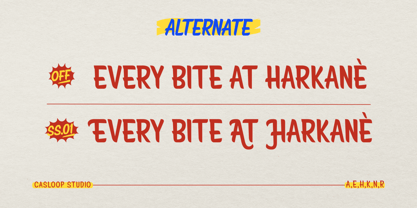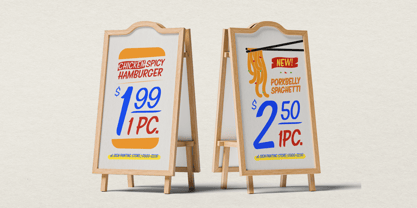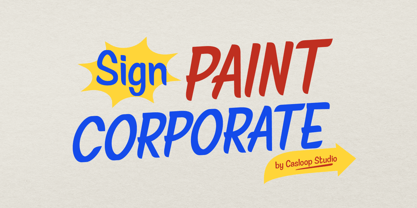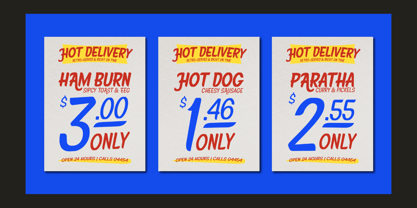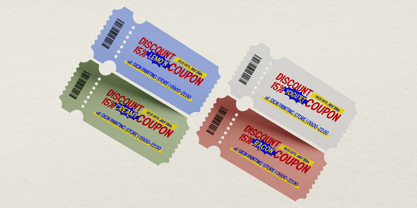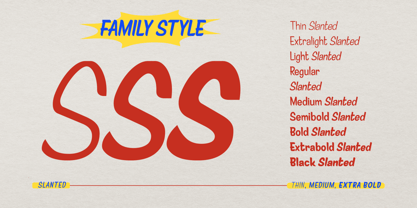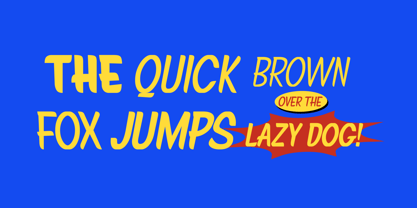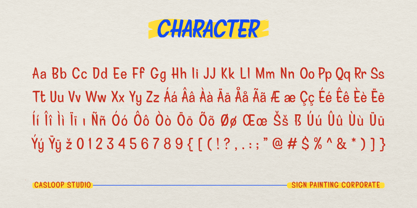
Signpaint Corporate
The Signpaint Corporate Font Family was designed by Wantara Putra and published by Casloop Studio. Signpaint Corporate contains 18 styles and family package options. More about this family
Sign Painting Corporate is a nostalgic display typeface inspired by the hand-painted signage era of the '60s–'80s — when every street corner was a canvas and every letter told a story. Designed with expressive brush strokes and round, friendly sans, this font captures the bold charm of vintage storefront lettering while staying practical for today’s visual branding. This typeface blends street-side charisma with commercial clarity, making it perfect for projects that want to feel approachable, lively, and instantly recognizable.
Personality
• “Sign” – a playful sans with rounded friendliness
• “Painting” – expressive hand-painted script, lively and bold
• “Corporate” – a strong visual anchor, grounded but full of warmth
• Feels like: local street vendors, corner barbershops, classic laundromats, homemade posters, open-mic night flyers
Best For
• Shop signage & storefront branding
• Retro-inspired product packaging
• Local event posters & flyers
• Food stalls, barbers, and bold branding
• Visual storytelling with a human, hand-done touch
From hand-brushed walls to digital displays, Sign Painting Corporate brings the soul of analog signage to modern screens. Whether you're making a label, storefront, or campaign that needs heart, this font gives your work that classic, human-made energy. From Bali with a brush — let's paint your message with Casloop flair.